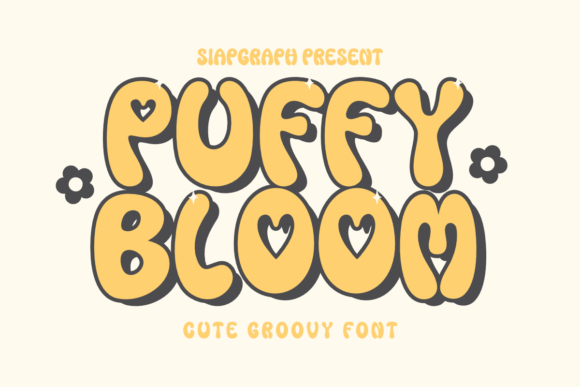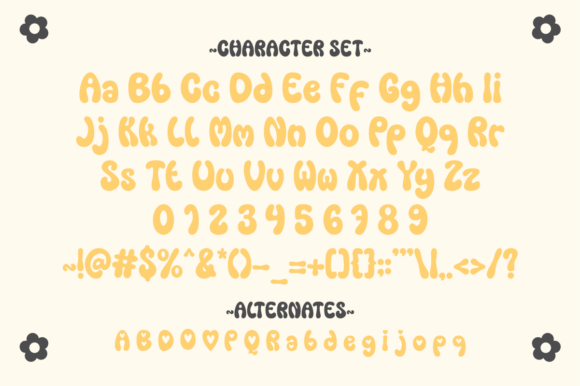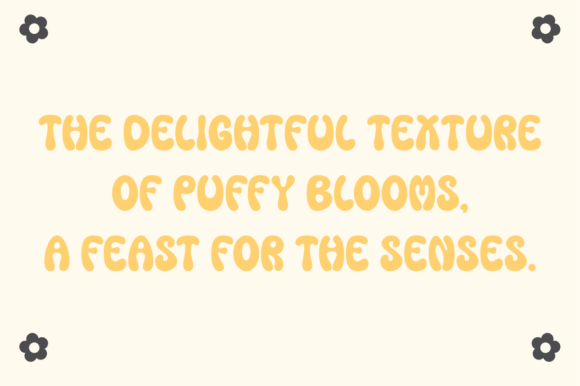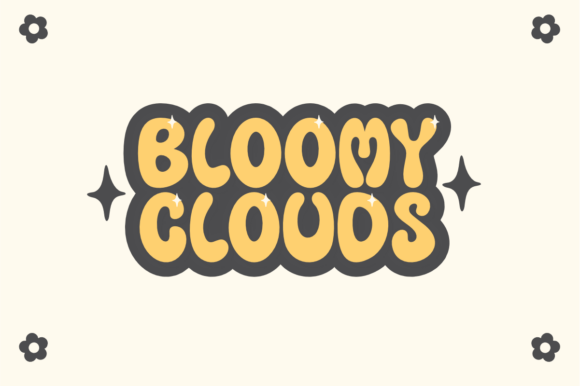
Puffy Bloom Font
About the Puffy Bloom Font
Let us introduce you to Puffy Bloom Font, where timeless design meets modern craftsmanship. Immerse yourself in the delightful vibrancy of Puffy Bloom – a whimsically charming font that exudes cheer and character! The font marvelously balances groovy curves and jovial, round contours, manifesting a design that’s both bold and endearingly whimsical. An ideal choice for Cricut creations, sublimation, apparel embellishments, decorative stickers, meaningfully personalized planners, or immersive scrapbooks. Puffy Bloom’s uniquely captivating aesthetics makes it a go-to font for everything from kid-centric design projects to branding endeavors for small businesses, and crafting standout digital products. Experience the joyful expressiveness of Puffy Bloom font, where creativity meets charm!
Puffy Bloom Font Usage Examples
Puffy Bloom Font Example